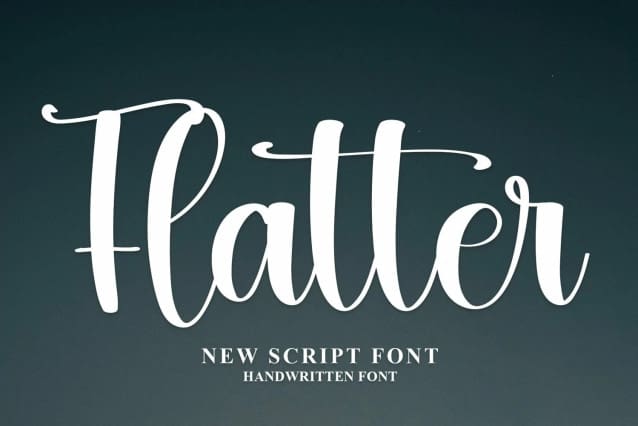
Flatter Script Font
Flatter Script Font is a font with a modern style. Fonts designed for all your needs such as making flyers, mockups, logos, banners, Instagram, youtube, and various other crafts. Using this font is a business and it will look as good as tough. Simple and easy to use fonts will be very beautiful if you mix them with your various craft designs. Then this font has many characters that you can use.